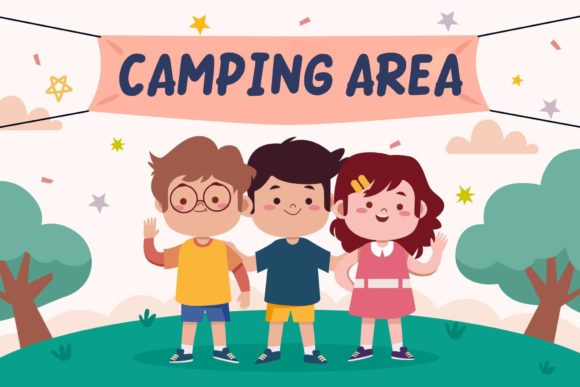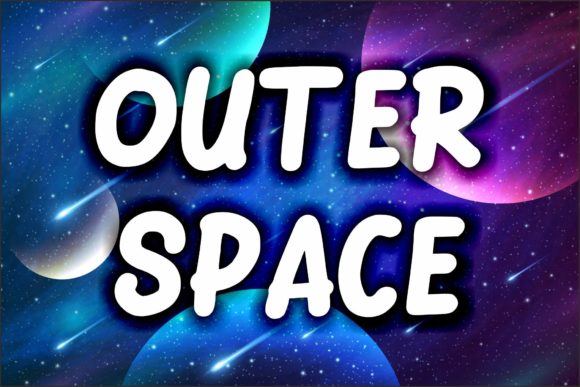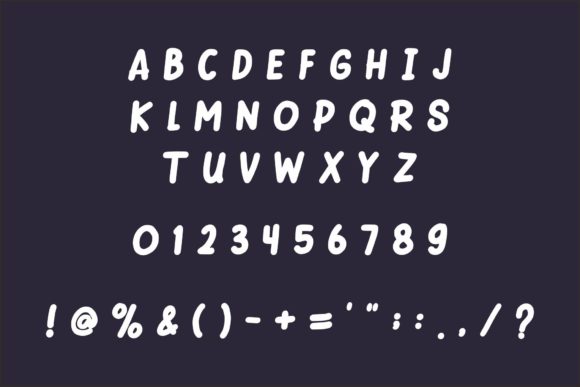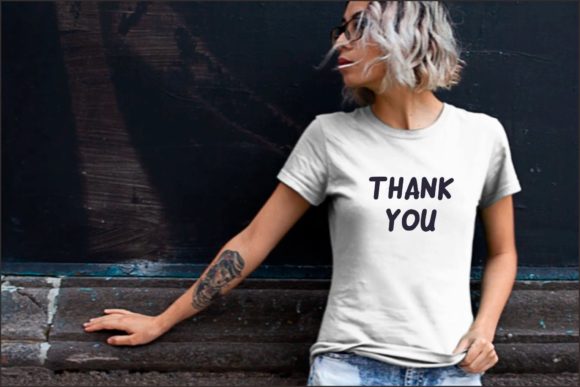
Introduction to Ngenest Font
Ngenest is a cute styled display font.
Its informal slanted style and casual feel make it a top choice for any creation that needs a touch of fun It will look beautiful on product packaging, t-shirts, labels, posters, logos and anything else you want to develop.